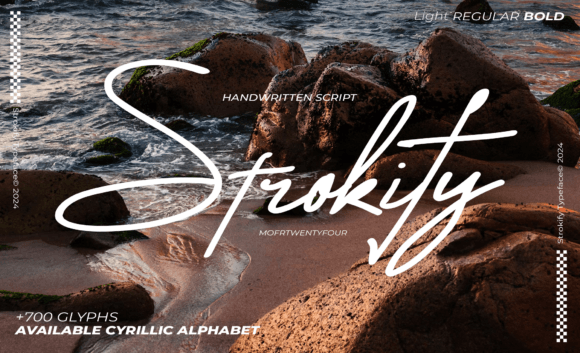
Unleash Your Creativity with Strokify Font: The Ultimate Typeface for Modern Designs
Are you tired of using the same old fonts for your designs? Look no further than Strokify, the versatile typeface that combines modern vibrancy with handwritten elegance. With its unique edge and vast range of glyphs, Strokify is the perfect choice for designers looking to elevate their typography and create stunning visual effects.
The Artistic Majesty of Strokify
Strokify is more than just a font – it’s an artistic experience. Its blend of modern and handwritten elements creates a distinctive allure that’s sure to capture the hearts of your audience. Whether you’re designing a music album cover, a streetwear logo, or a t-shirt graphic, Strokify’s cool, contemporary aesthetic is sure to make your design stand out.
A World of Possibilities: Over 600 Glyphs and Counting
One of the standout features of Strokify is its vast range of glyphs – over 600 to be exact. This means that you can use Strokify to create designs in a multitude of languages, including those that use Cyrillic characters. Whether you’re designing for a global audience or simply want to add some extra flair to your typography, Strokify’s got you covered.
- Over 600 glyphs for maximum versatility
- Support for multiple languages, including Cyrillic characters
- Variable weights for added flexibility
Breaking Free from Traditional Script Fonts
Are you tired of the same old script fonts that lack a unique edge? Strokify is here to broaden your horizons. With its blend of modern and handwritten elements, Strokify offers a fresh take on traditional script fonts. Whether you’re designing a wedding invitation or a fashion brand logo, Strokify’s delicate yet bold aesthetic is sure to make your design shine.
Endless Design Possibilities with Strokify
So, what can you create with Strokify? The possibilities are endless! Here are just a few ideas to get you started:
- Pulsating music album covers that demand attention
- Edgy streetwear designs that speak to a younger audience
- Eye-catching t-shirt graphics that make a statement
- Stunning fashion brand logos that exude style and sophistication
Why Choose Strokify for Your Designs?
So, why choose Strokify for your designs? Here are just a few reasons:
- Unique and distinctive aesthetic that sets you apart
- Vast range of glyphs for maximum versatility
- Variable weights for added flexibility
- Support for multiple languages, including Cyrillic characters
In conclusion, Strokify is the ultimate typeface for modern designs. With its unique blend of modern vibrancy and handwritten elegance, Strokify is sure to elevate your typography and create stunning visual effects. Whether you’re a seasoned designer or just starting out, Strokify is the perfect choice for anyone looking to make a bold creative statement.
- What is Strokify? Strokify is a versatile typeface that combines modern vibrancy with handwritten elegance.
- How many glyphs does Strokify have? Strokify has over 600 glyphs.
- What languages does Strokify support? Strokify supports multiple languages, including those that use Cyrillic characters.